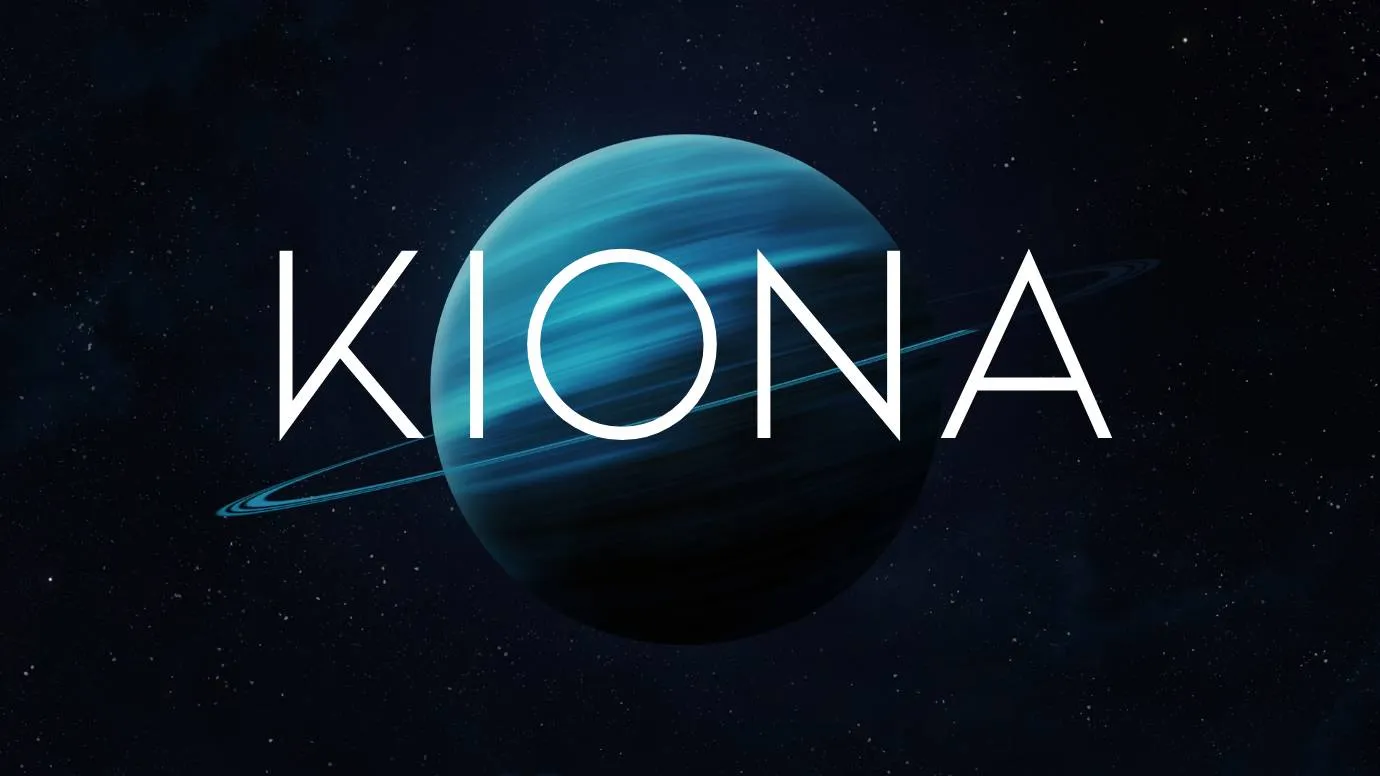
Kiona that belongs to the sans serif typeface family. This superb font was designed and shared in 2018 by Ellen Luff. It is simple but more significant and defined due to its tasteful edges and advanced touches. This font family contains 4 weights including regular, light, bold, and semi-bold.
Nunito Sans font and Raleway font are the most similar fonts to this typeface. It is going to be perfect for posters, book covers, logos, headlines, print media, signed and many more.
Kiona Font
NameKiona Font
DesignerEllen Luff
Date Released2018